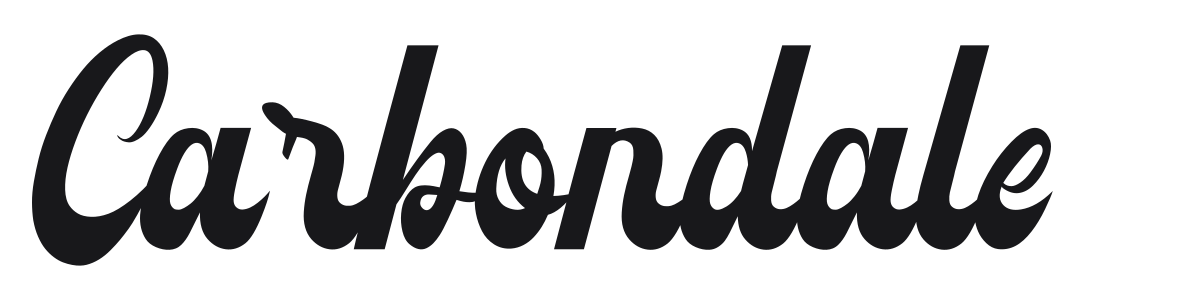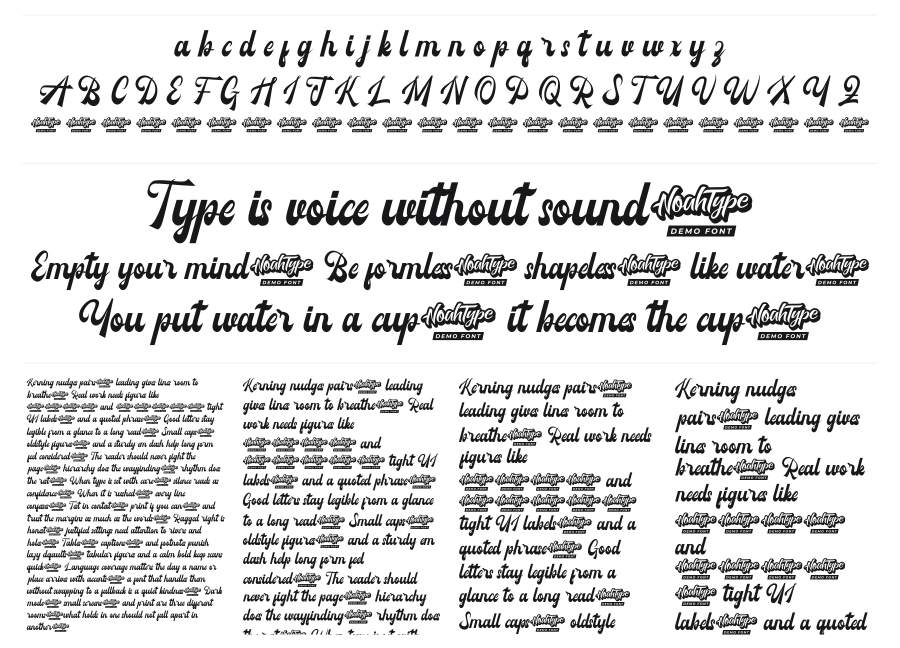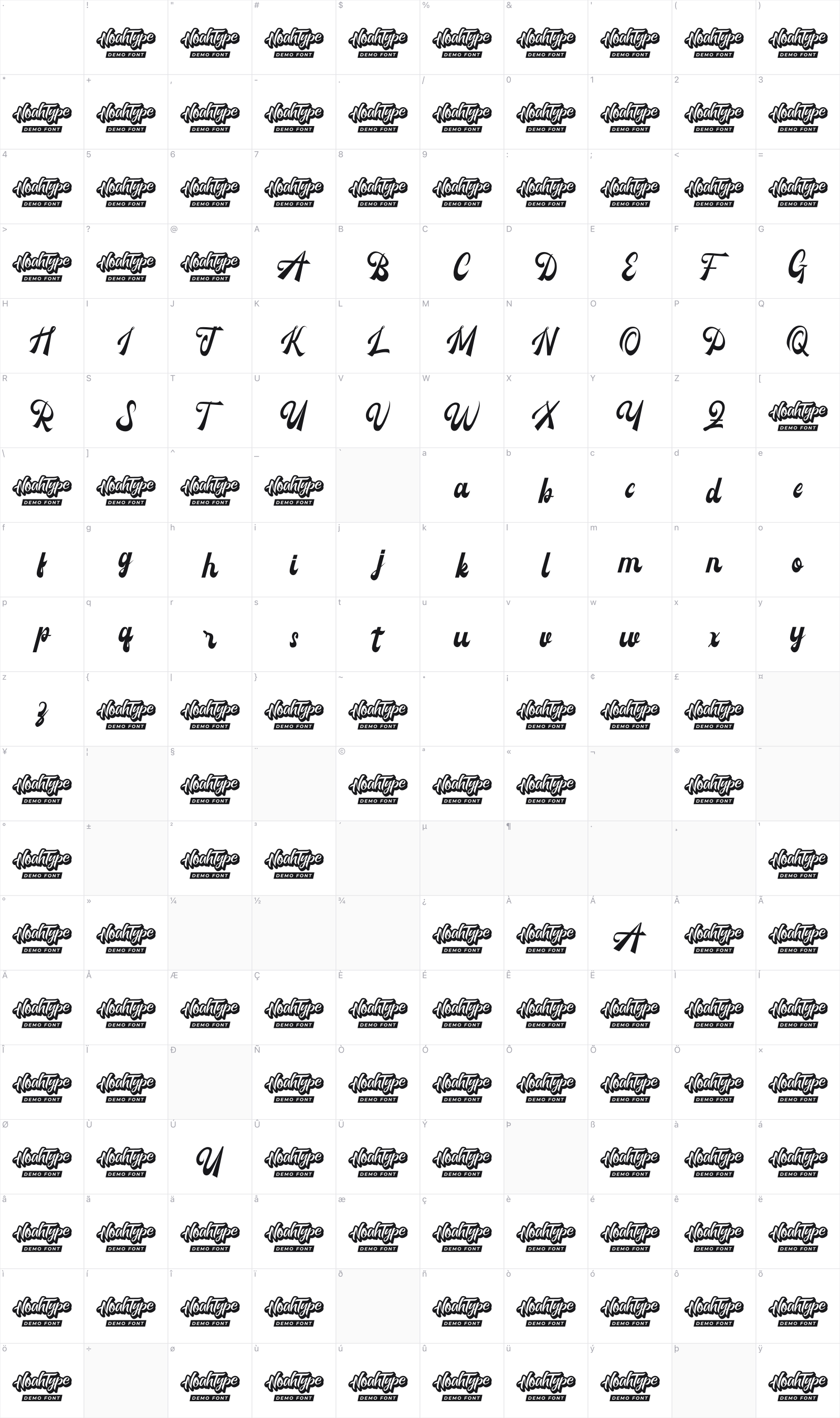
Carbondale
Carbondale is a bold retro casual script rooted in the tradition of mid-century American sign painting. Thick, looping strokes flow continuously from letter to letter, with ink-trap notches at joins that give it an authentic hand-lettered feel. It carries the confident energy of vintage logotypes and works best at large display sizes where those bold curves can breathe.